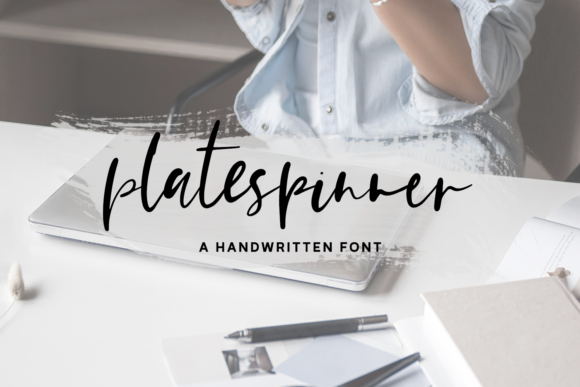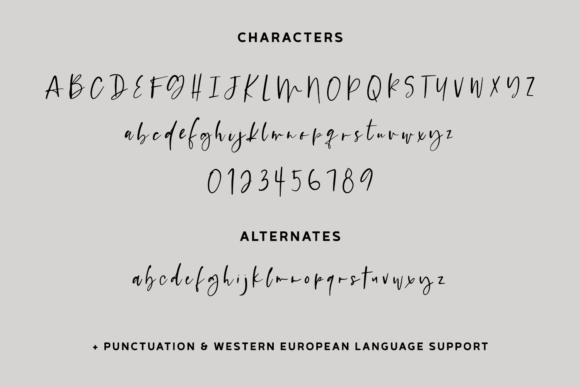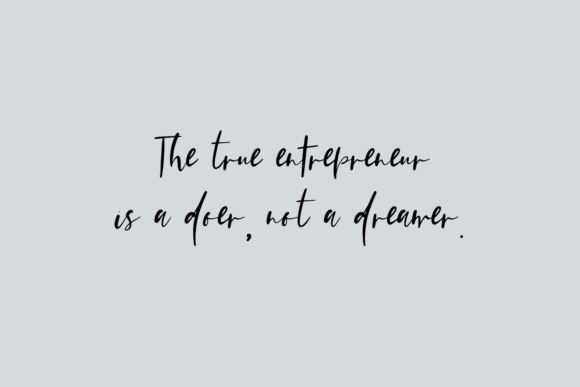
About Platespinner Script Font
Platespinner Script is a beautiful and stylish script font. It has a classy, elegant and modern look that can be used for logos, branding, invitations, stationery, wedding designs, social media posts, and much more!